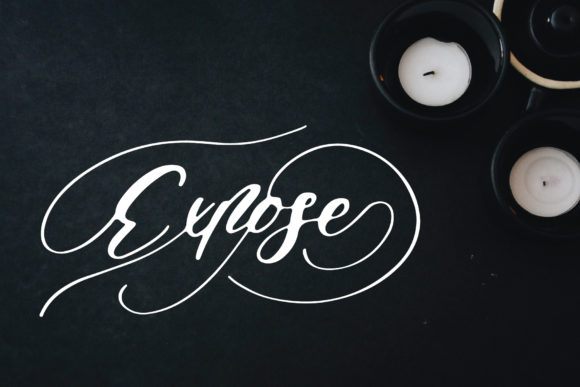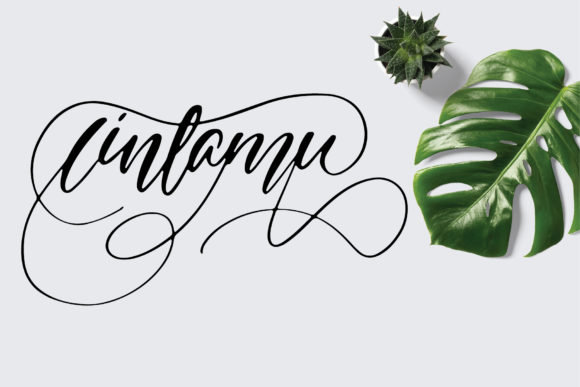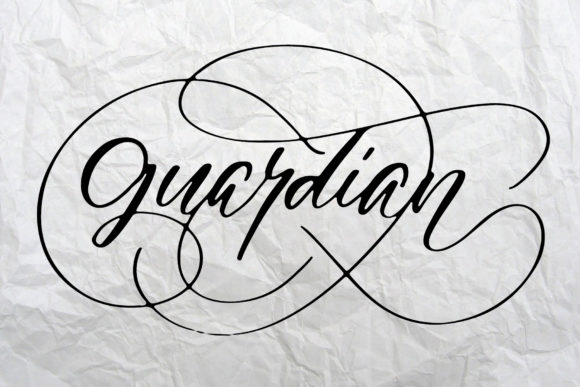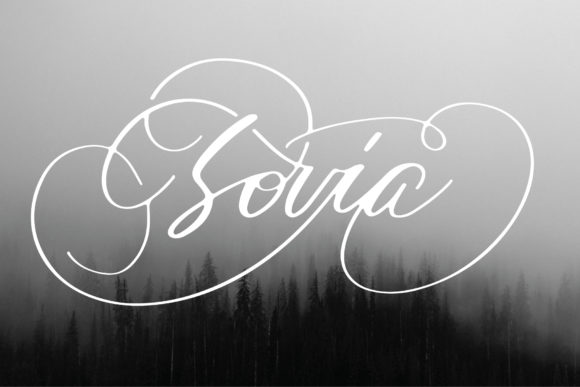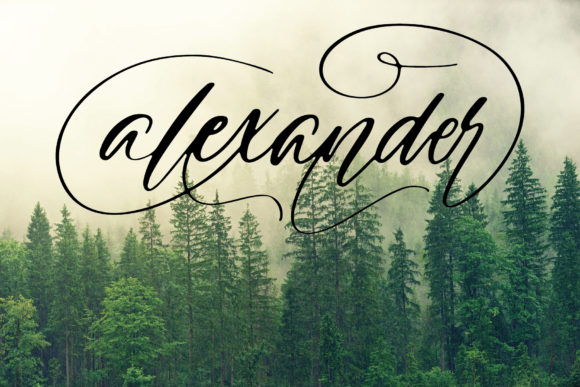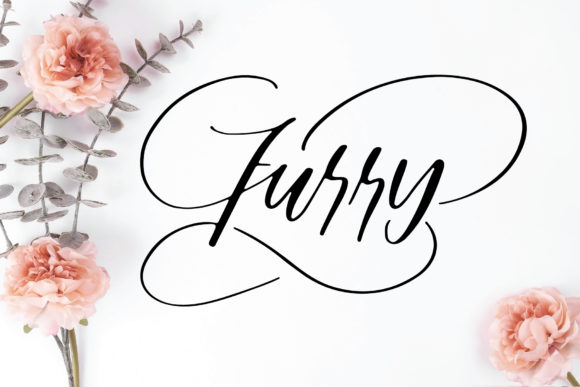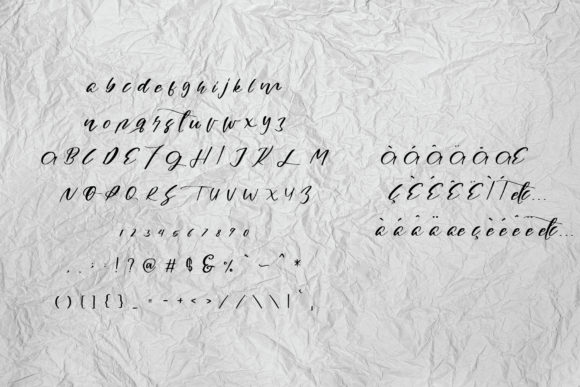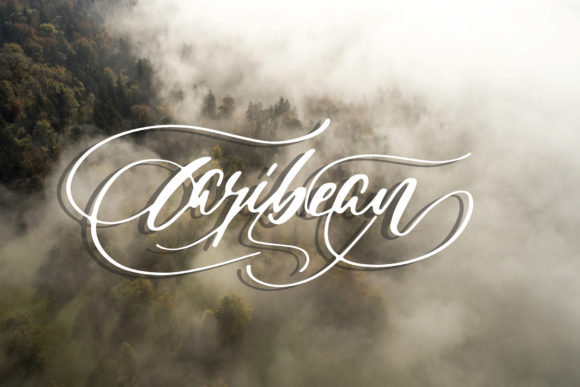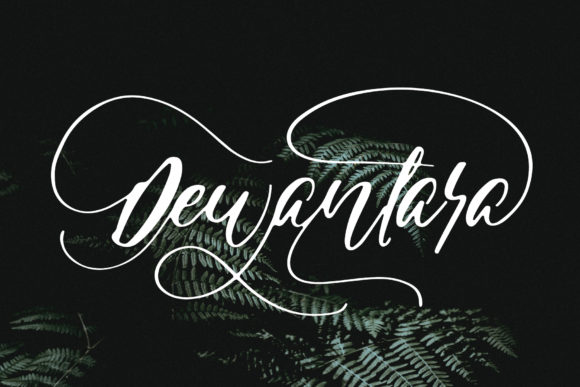
HomeScript FontsExpose Font Script Fonts Expose Font FacebookXPinterestWhatsApp Expose Font Poster 2 Expose Font Poster 3 Expose Font Poster 4 Expose Font Poster 5 Expose Font Poster 6 Expose Font Poster 7 Expose Font Poster 8 Expose Font Poster 9 About Expose Font Expose is a unique and swirly script with gorgeous and playful swashes. Fall in love with its elegant feel! DOWNLOAD ON CREATIVE FABRICAThis font is sold and delivered by Creative Fabrica. Font Canyon may earn a commission if you buy through this link. People also explored Shiny Flower Font Bon Voyage Font Neon Light Font Nooble Wooble Font Marwinto Italic Font Flower Lover Font RS01 Cursiva Rhinestone Template TTF Font Sentury Font Jarchook Font 308 0 TagsExpose Font Previous articleKannabelle FontNext articleKetogenic Font LEAVE A REPLY Cancel reply Comment: Please enter your comment! Name:* Please enter your name here Email:* You have entered an incorrect email address! Please enter your email address here Website: Save my name, email, and website in this browser for the next time I comment. Personal Use Free Xplor Personal Use Free Read more about this font Hatchill Personal Use Free Read more about this font 08 Underground Personal Use Free Read more about this font Angista Script Personal Use Free Read more about this font BLOG Free vs Paid Fonts: Why Investing in Premium Fonts Is Worth It Free vs Paid Fonts: Why Premium Fonts Are Worth It in 2025 The debate of free vs paid fonts continues in the design world. While... 5 Fonts That Will Dominate Design Trends in 2026 How to Install and Use Fonts on Windows, macOS, and Web Projects Using Fonts in Digital Marketing: Tips to Strengthen Your Brand Identity